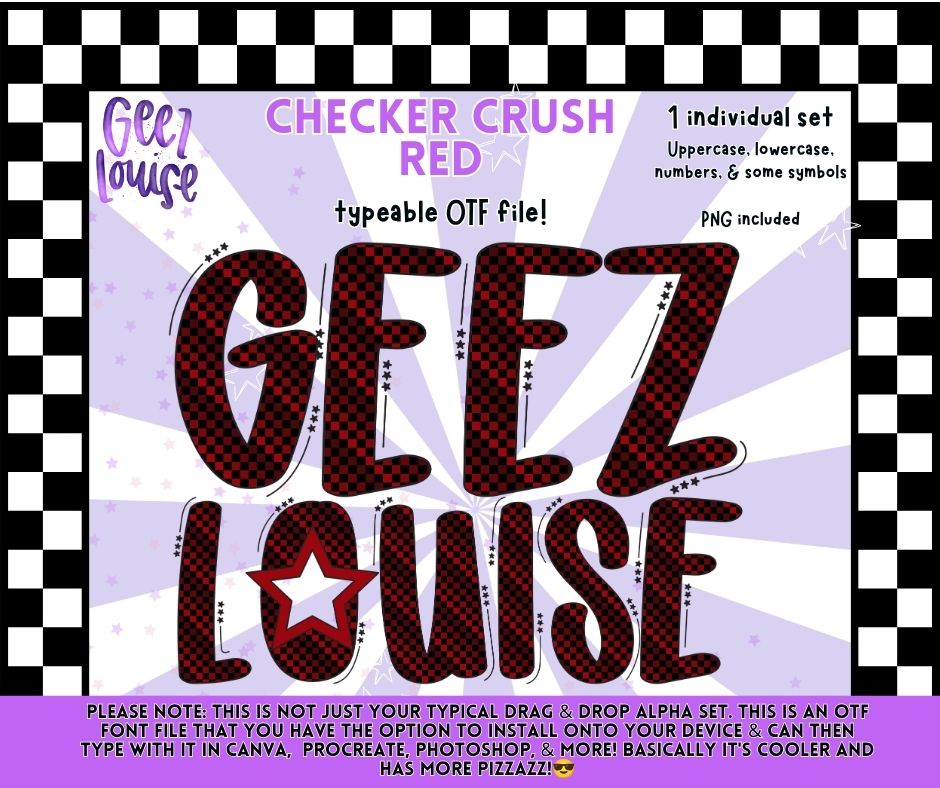
Checker Crush Red Alpha Font OTF | Red Checker Alphabet PNG | Typeable Font | Sports Font
❤️🖤 Make your designs stand out with Checker Crush Red Alpha! This bold typeable font features a rich red and black checker pattern that's perfect for school spirit, sports teams, racing-inspired graphics, holiday projects, and everyday apparel.
- Uppercase Letters
- Lowercase Letters
- Numbers
- Select Symbols